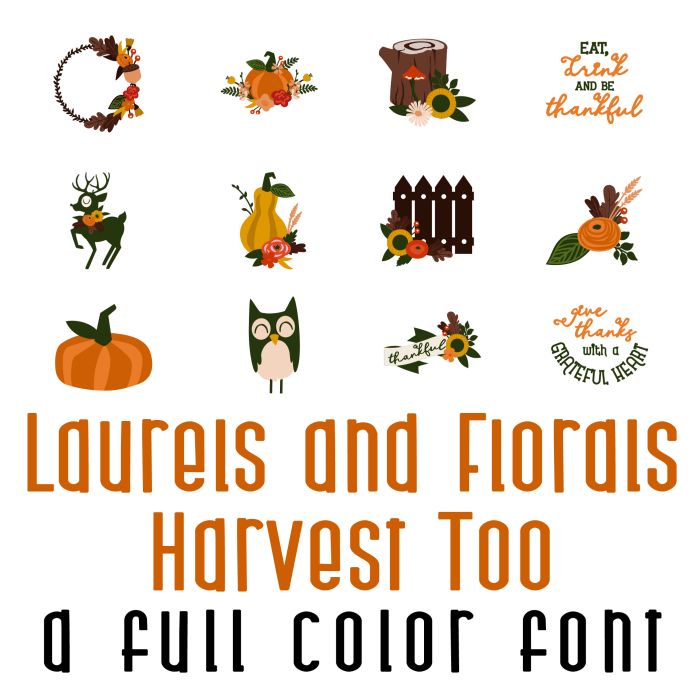
This fun full color font features 26 fall Animals and Pumpkins. Perfect for Thanksgiving, cards, crafts, parties, gifts, decor, planner stickers, classrooms, scrapbook pages and more!